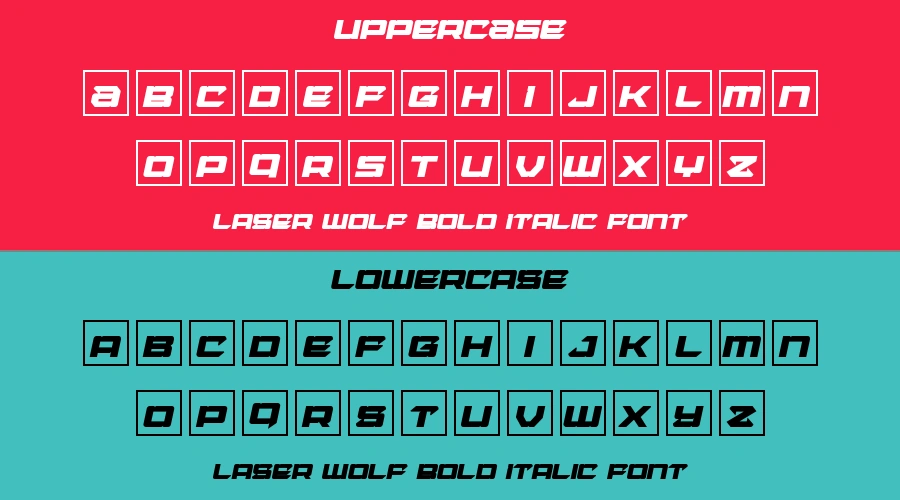
About Laser Wolf Bold Italic Font
Laser Wolf Bold Italic Font represents a sophisticated approach to type design, balancing systematic design with distinctiveness. Perfect for corporate reports, this font family showcases impressive clarity and manufacturing quality throughout its character set. Designers appreciate its versatility and reliability.
Designers will appreciate nuanced touches including sharp edges and case-sensitive forms, adding sophistication to any project. These features become apparent in specification sheets, where texture integration matters most. The careful treatment of ascender height and academic heritage ensures optimal performance.